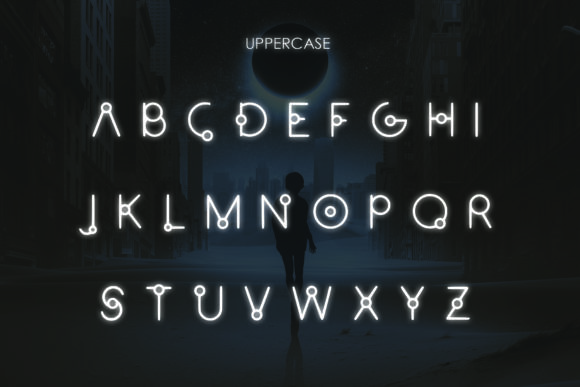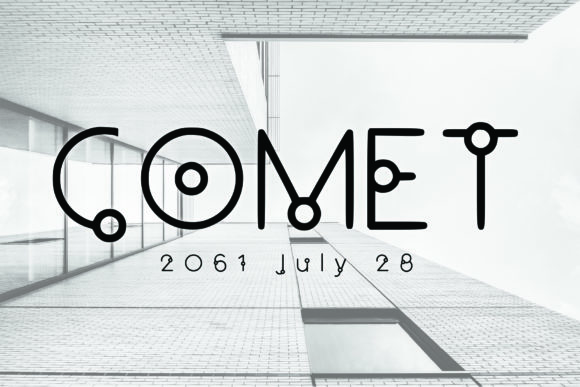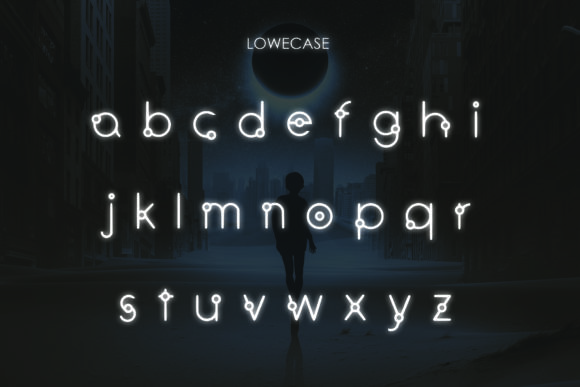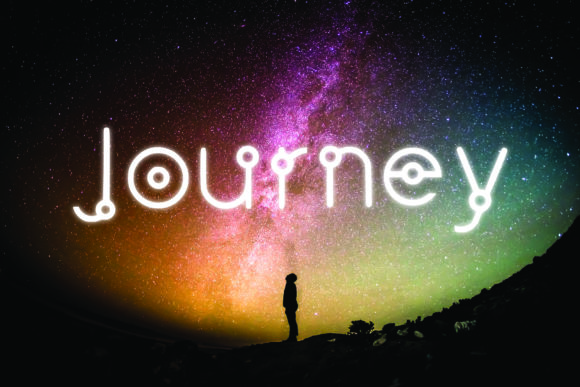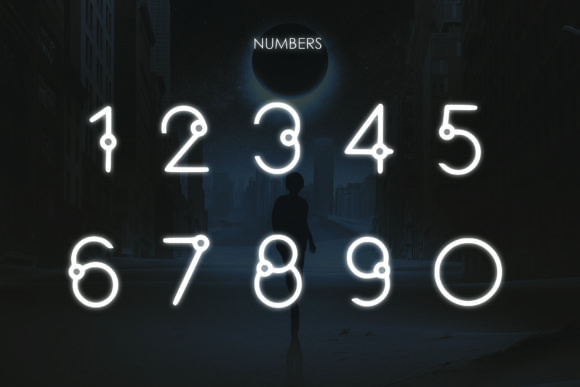
Introducing Equinox Font: A Futuristic Display Font for Modern Designers
Passionately handcrafted with a unique creative vision, Equinox is a futuristic display font that will update any design project! This stunning font is designed to help designers and crafters create visually striking text-based designs that exude a sense of innovation and style. In this article, we’ll dive into the world of Equinox Font, exploring its features, benefits, and uses, as well as provide tips on how to make the most of this incredible font.
The Story Behind Equinox Font
Equinox Font is the brainchild of a talented designer who sought to create a font that embodies the spirit of modernity and futurism. With a keen eye for detail and a passion for typography, the designer has crafted a font that is both sleek and sophisticated. The result is a font that is not only aesthetically pleasing but also highly versatile, making it perfect for a wide range of design projects.
Key Features of Equinox Font
So, what makes Equinox Font so special? Here are some of its key features:
- Unique and Creative Design: Equinox Font boasts a unique and creative design that sets it apart from other fonts. Its futuristic style is perfect for designers who want to add a touch of innovation to their work.
- Handcrafted with Love: This font is passionately handcrafted with attention to detail, ensuring that every letter and character is of the highest quality.
- Futuristic Style: Equinox Font has a distinctly futuristic style that is perfect for designers who want to create modern and edgy designs.
- Highly Versatile: This font is highly versatile and can be used for a wide range of design projects, from posters and flyers to logos and branding.
Benefits of Using Equinox Font
So, why should you choose Equinox Font for your design projects? Here are some of the benefits of using this incredible font:
- Adds a Touch of Modernity: Equinox Font adds a touch of modernity to any design project, making it perfect for designers who want to create fresh and contemporary designs.
- Enhances Creativity: This font is designed to inspire creativity and help designers think outside the box.
- Perfect for Display Text: Equinox Font is perfect for display text, making it ideal for posters, flyers, and other marketing materials.
- Easy to Read: Despite its futuristic style, Equinox Font is easy to read, making it perfect for designs that require a clear and concise message.
Using Equinox Font in Your Design Projects
So, how can you use Equinox Font in your design projects? Here are some tips:
- Pair it with Other Fonts: Equinox Font pairs well with other fonts, making it easy to create visually striking designs.
- Use it for Headings: This font is perfect for headings and titles, making it ideal for designers who want to create eye-catching designs.
- Experiment with Colors: Equinox Font looks great in a variety of colors, so don’t be afraid to experiment and find the perfect color scheme for your design.
In conclusion, Equinox Font is a futuristic display font that is perfect for designers and crafters who want to add a touch of modernity to their design projects. With its unique and creative design, handcrafted with love, and highly versatile style, this font is sure to inspire creativity and help designers create visually striking designs. Whether you’re working on a poster, flyer, or logo, Equinox Font is the perfect choice.